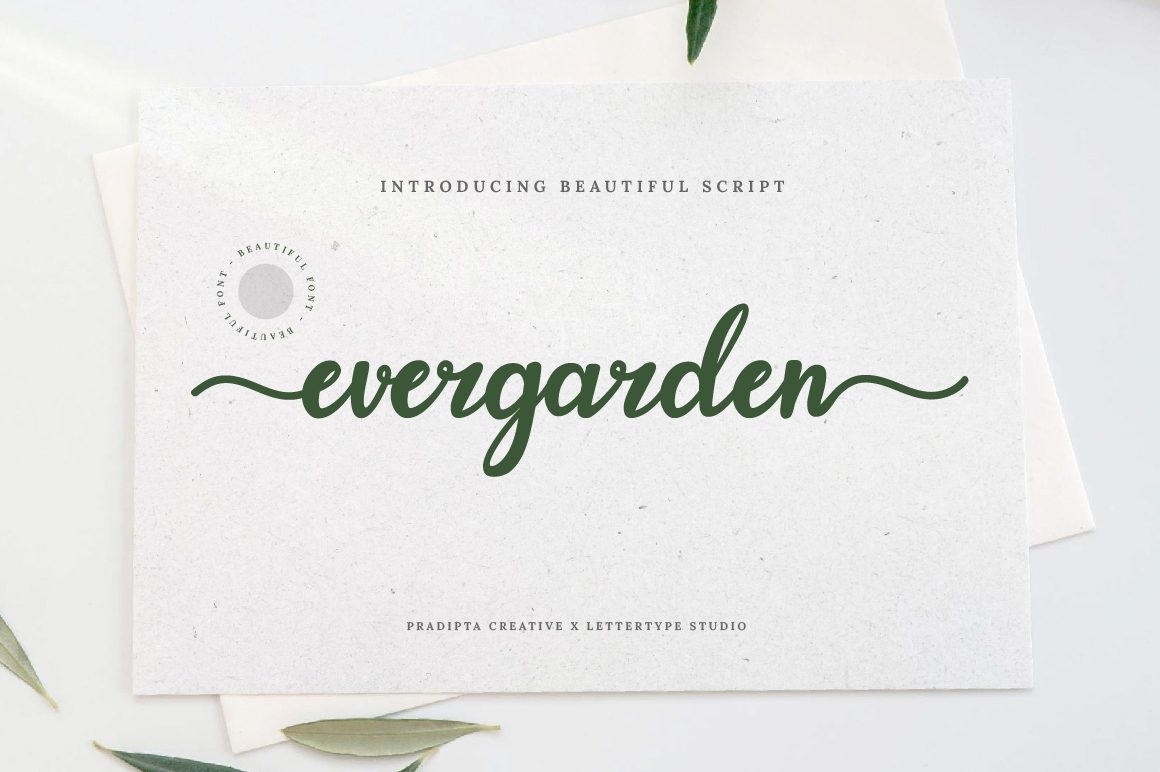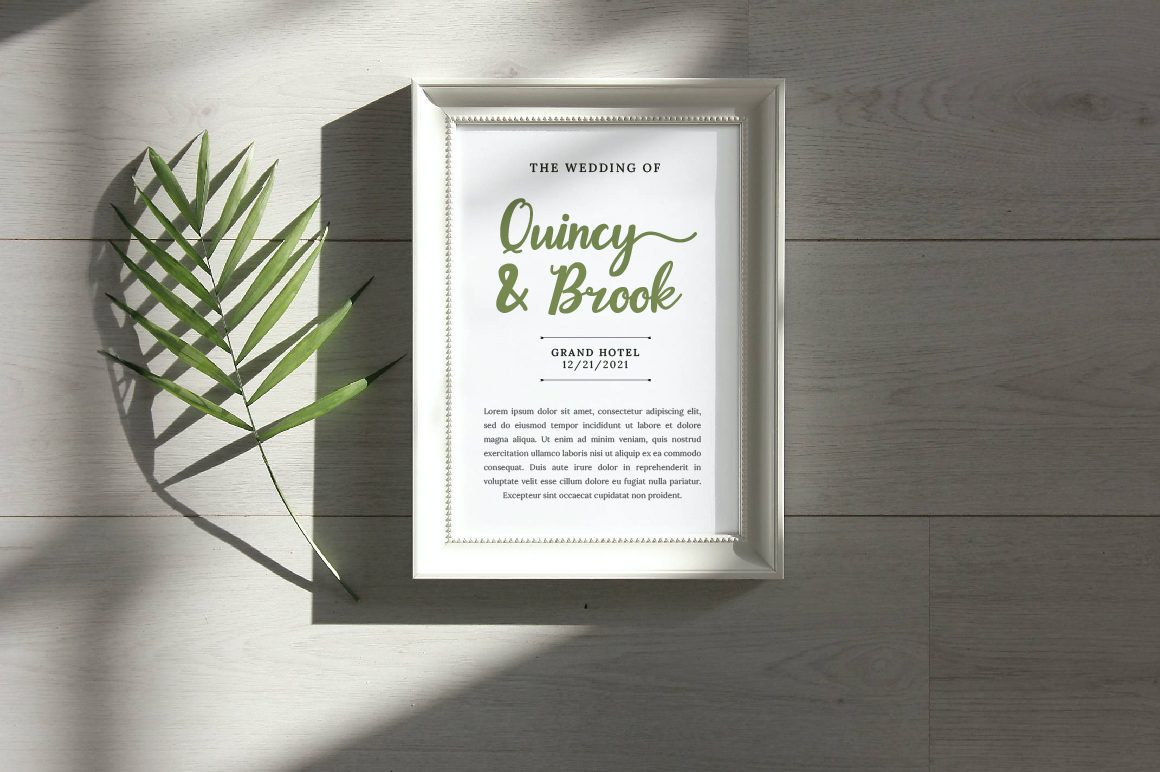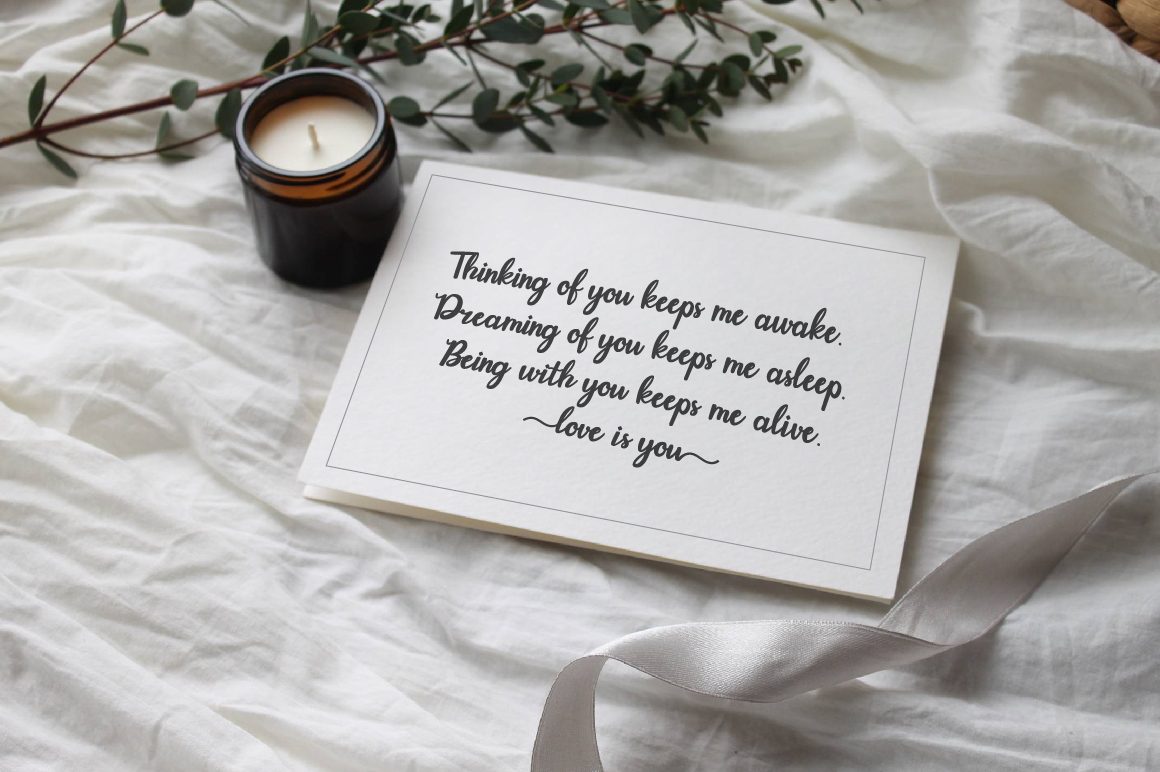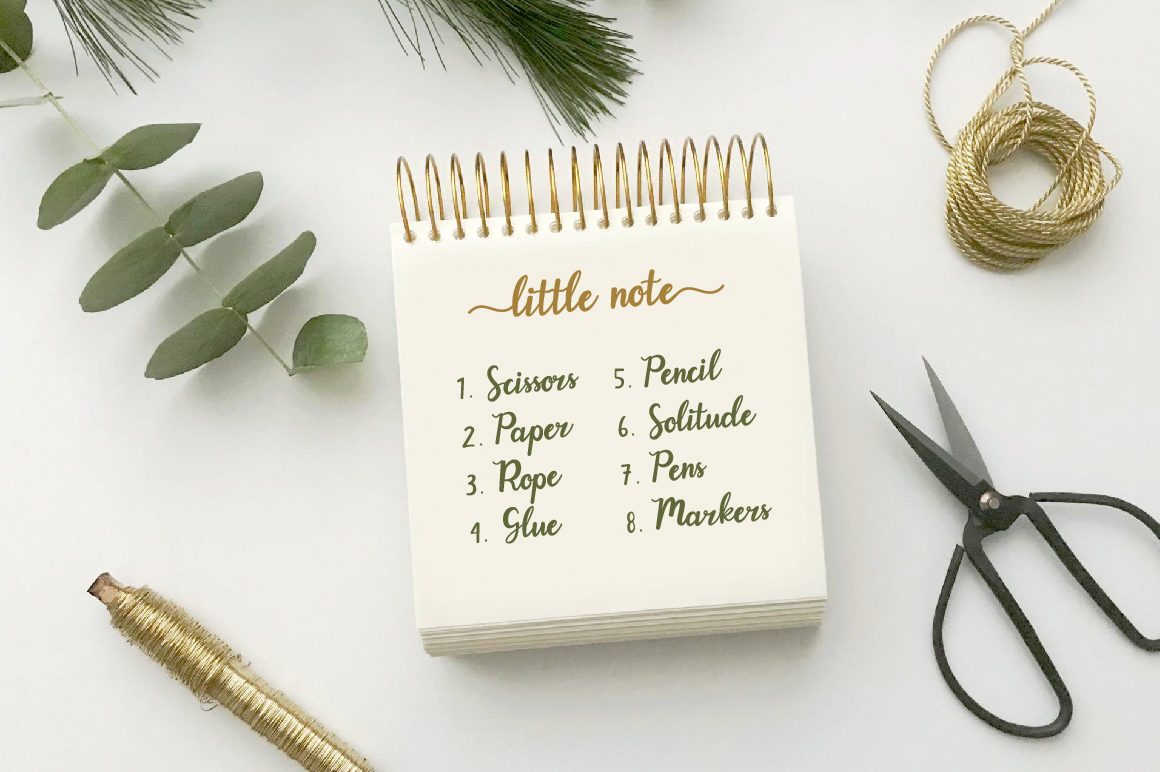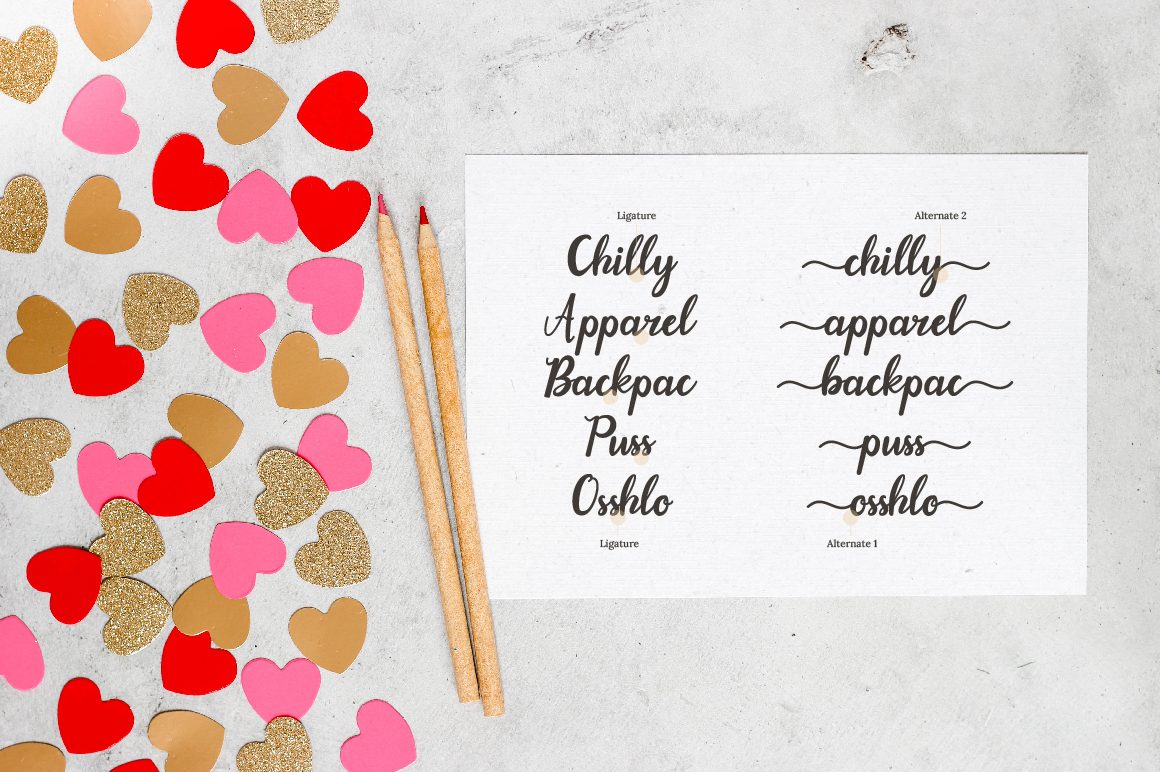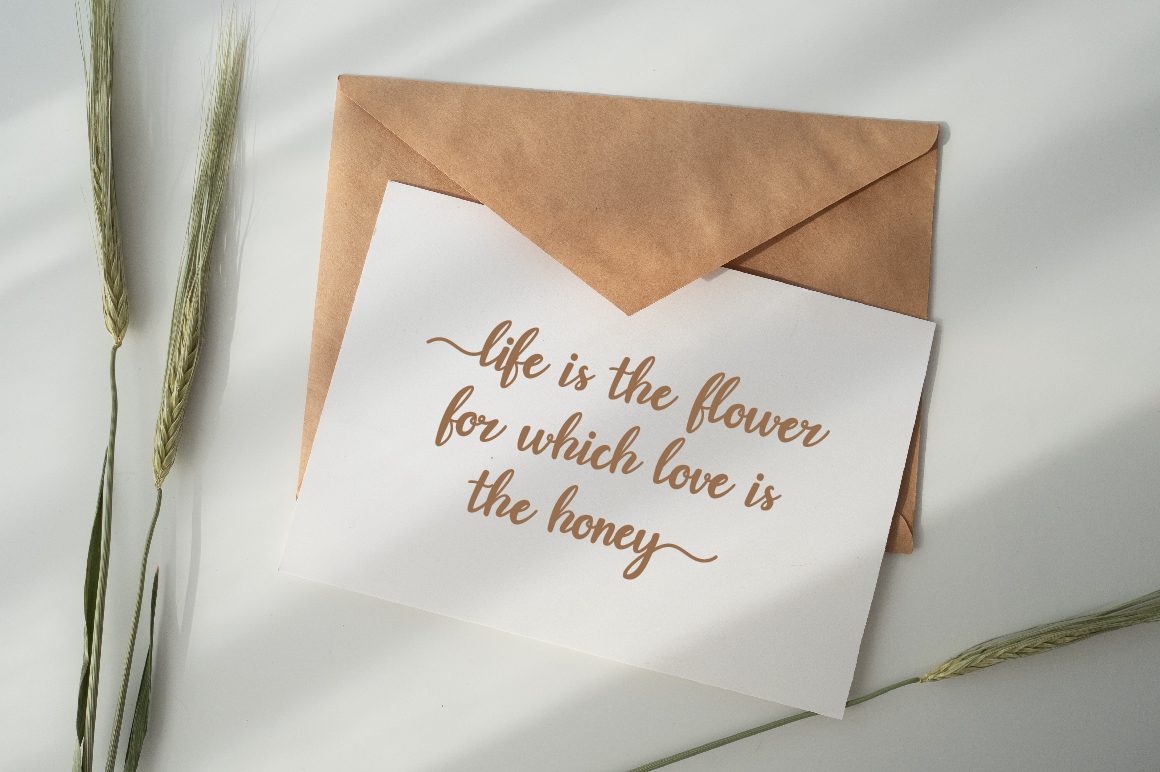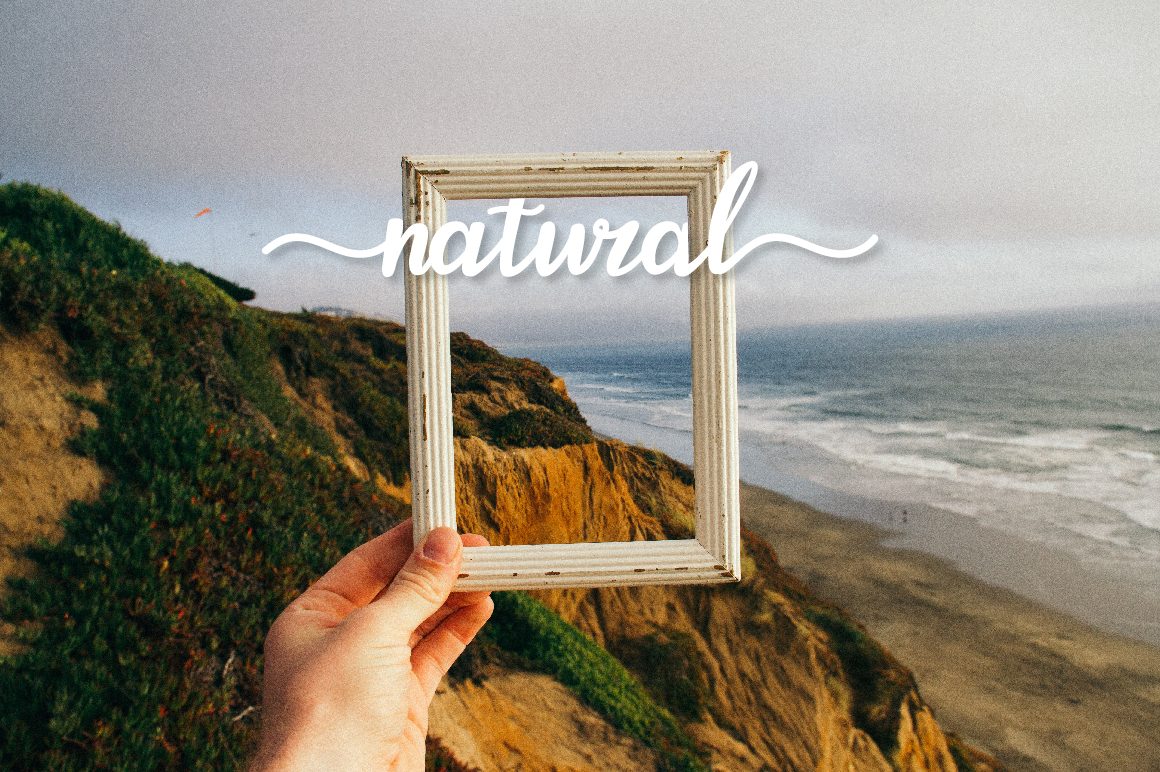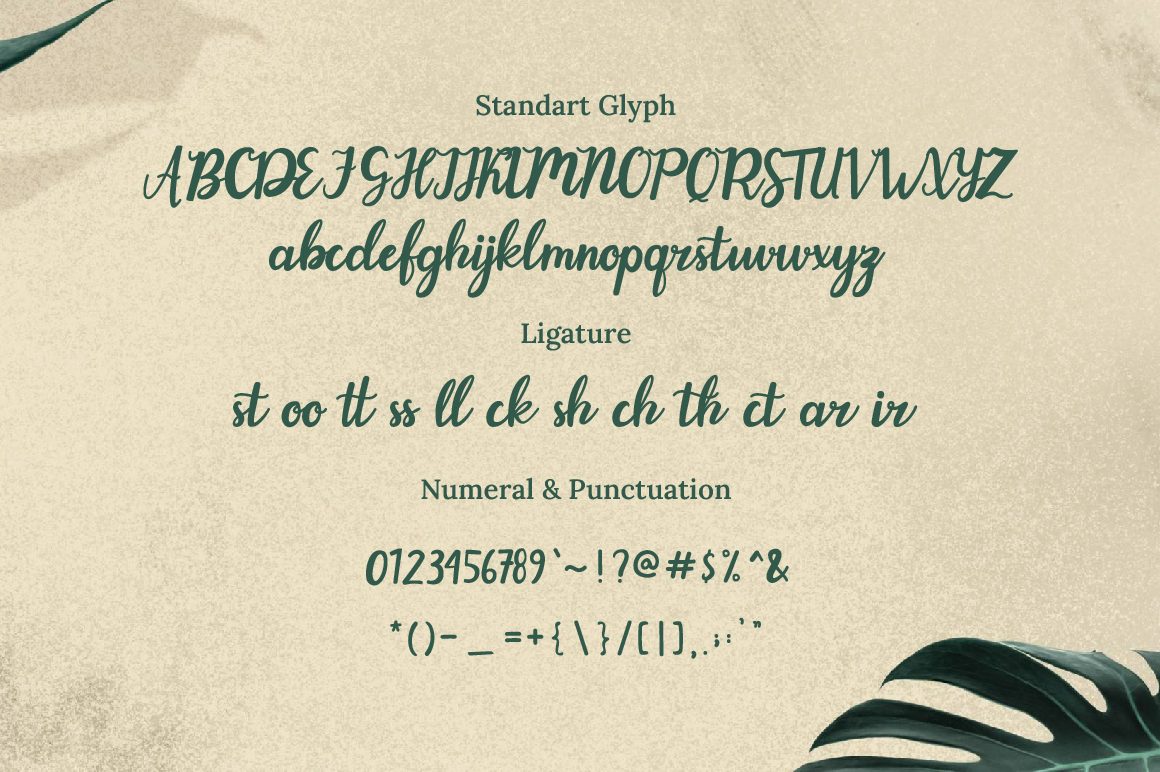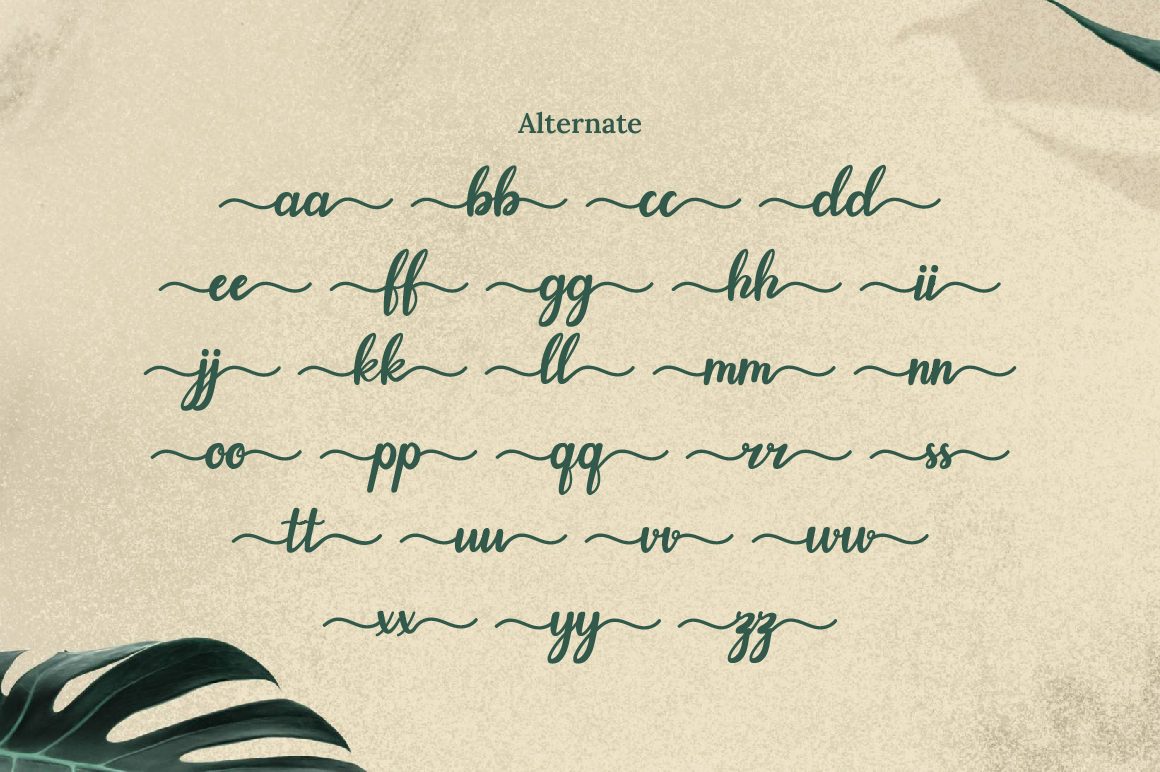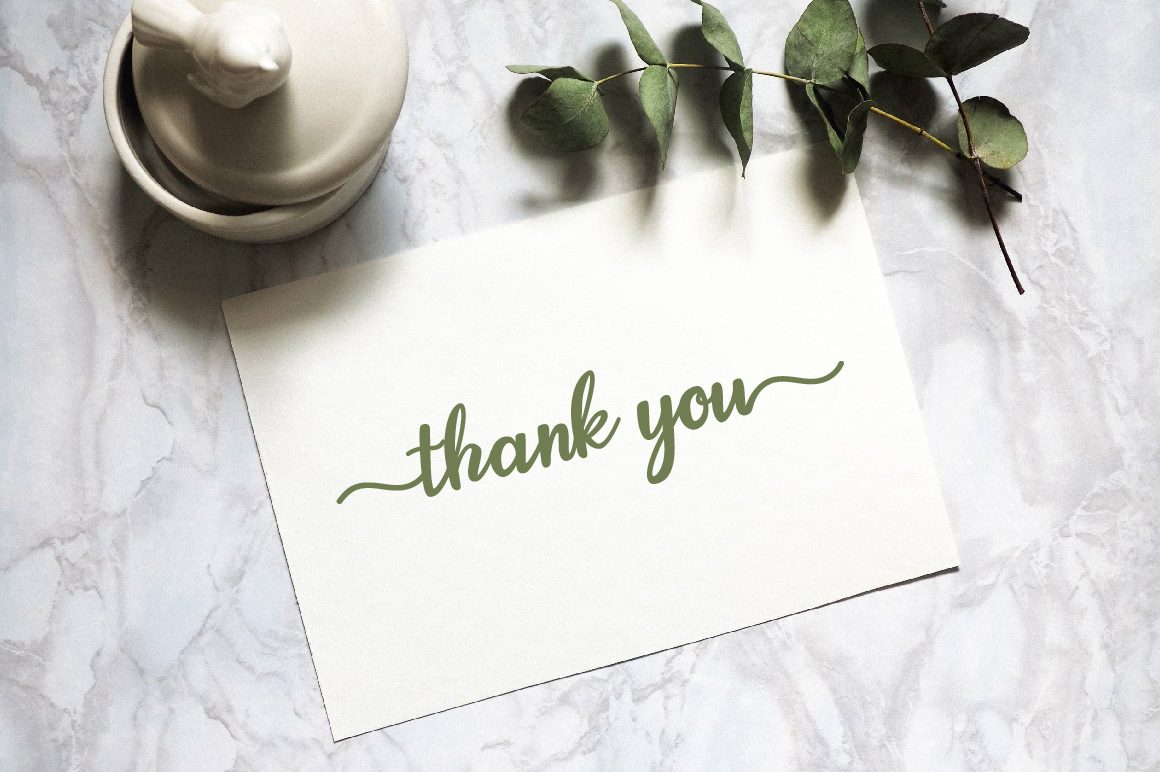
Evergarden
Evergarden Script is a beautiful and elegant handwritten font crafted with a feminine and girly touch. Designed with smooth curves, ligatures, and stylistic alternates, it allows you to create customized lettering that feels both personal and stylish.
Perfect for wedding invitations, logos, social media posts, branding projects, product packaging, and other creative designs, Evergarden brings charm and sophistication to any project. Its graceful strokes and versatile features make your ideas bloom with life and creativity.